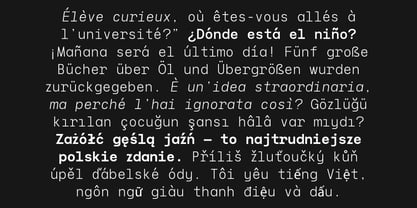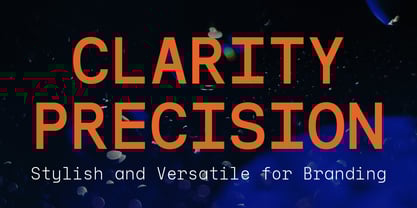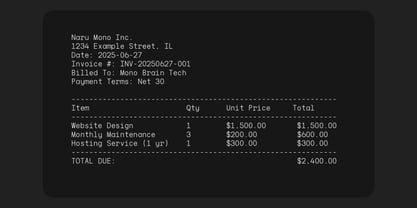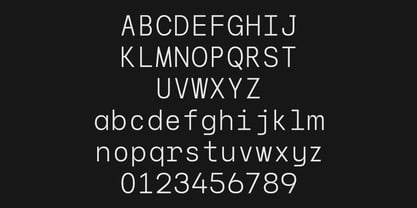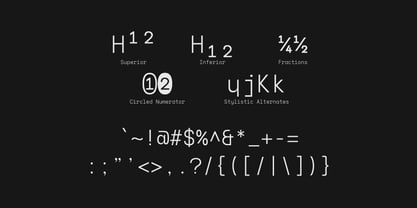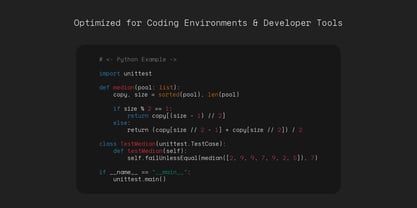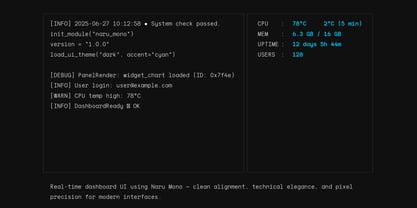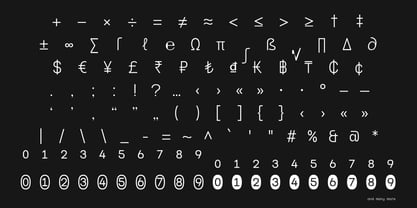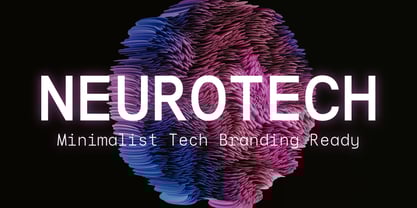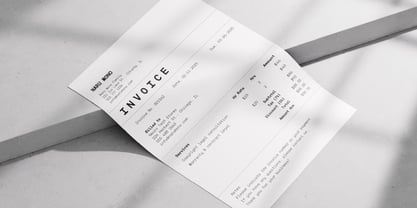
Naru Mono
by Lettertype Studio
The Naru Mono Font Family was designed by Diki Pradipta Tri Atmojo and published by Lettertype Studio. Naru Mono contains 10 styles and family package options.
Naru Mono is a modern, smooth, and elegant monospaced typeface family designed for clarity and precision. With geometric construction and clean rhythm, it’s crafted to elevate coding, terminal, UI, and tech-focused designs — while still being friendly and stylish for print or editorial use. Based on the original Naru Sans, Naru Mono seamlessly blends aesthetics and technical functionality.
The family includes 10 versatile styles, ranging from Regular to Extra Bold, each available in both Upright and Oblique formats. Whether you're building a dev dashboard, publishing code snippets, creating branding for tech startups, or designing multilingual interfaces — Naru Mono delivers outstanding legibility and a timeless, modern tone. Supports extensive Latin languages and punctuation.
Designers: Diki Pradipta Tri Atmojo
Publisher: Lettertype Studio
Foundry: Lettertype Studio
Design Owner: Lettertype Studio